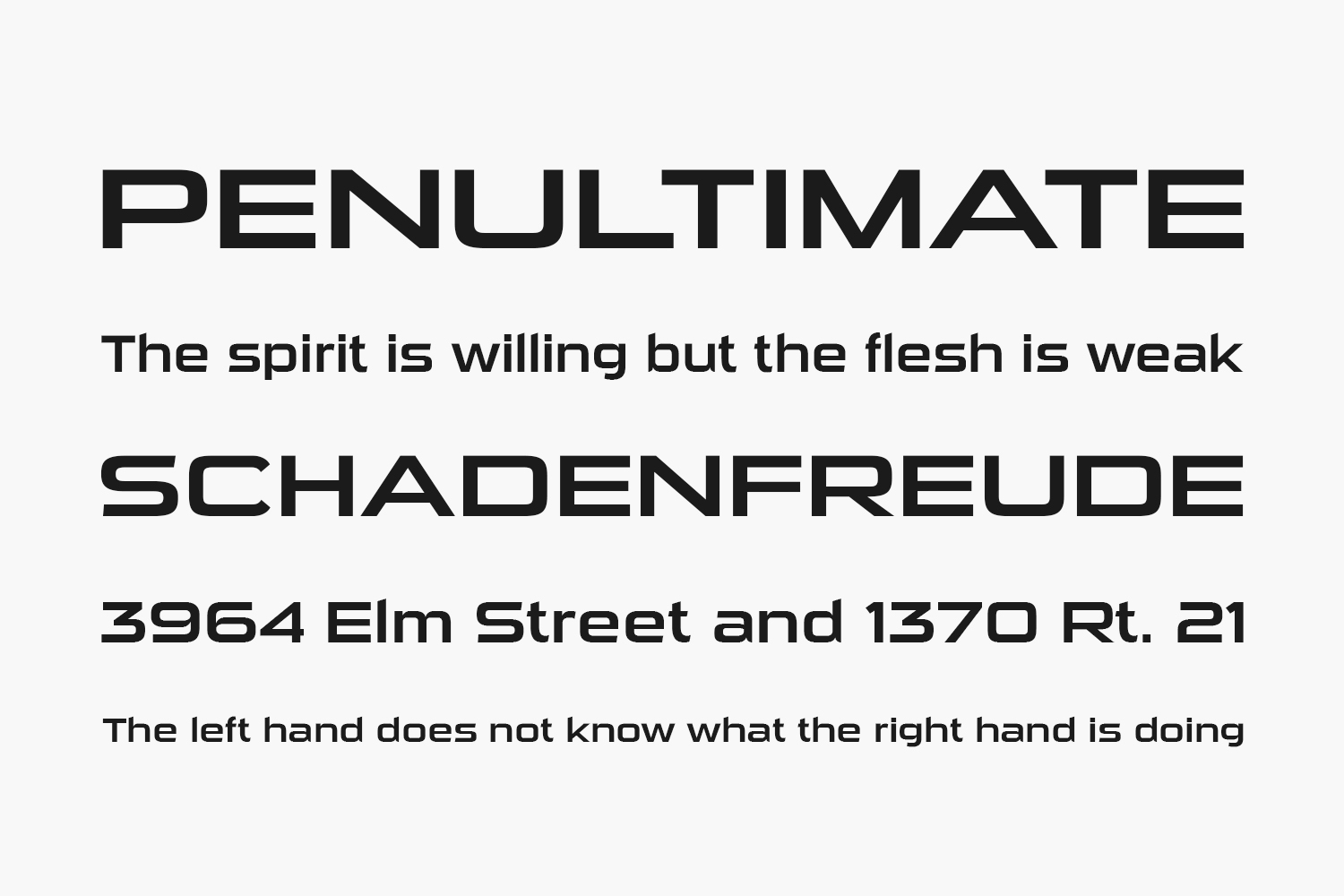
Sui Generis Free Font is a serious square sans from the turn of the millennium. This font includes a license that allows free commercial use: sometimes referred to as a desktop license. This allows you to install the font on a computer and use it to create posters, web graphics, game graphics, t-shirts, videos, signs, logos, and more. Read the license agreement for details. If you’d like to embed this font in an app, ebook, on the web, or anything that’s not covered by the desktop license agreement, visit the link below. Please purchase the full version for commercial use.